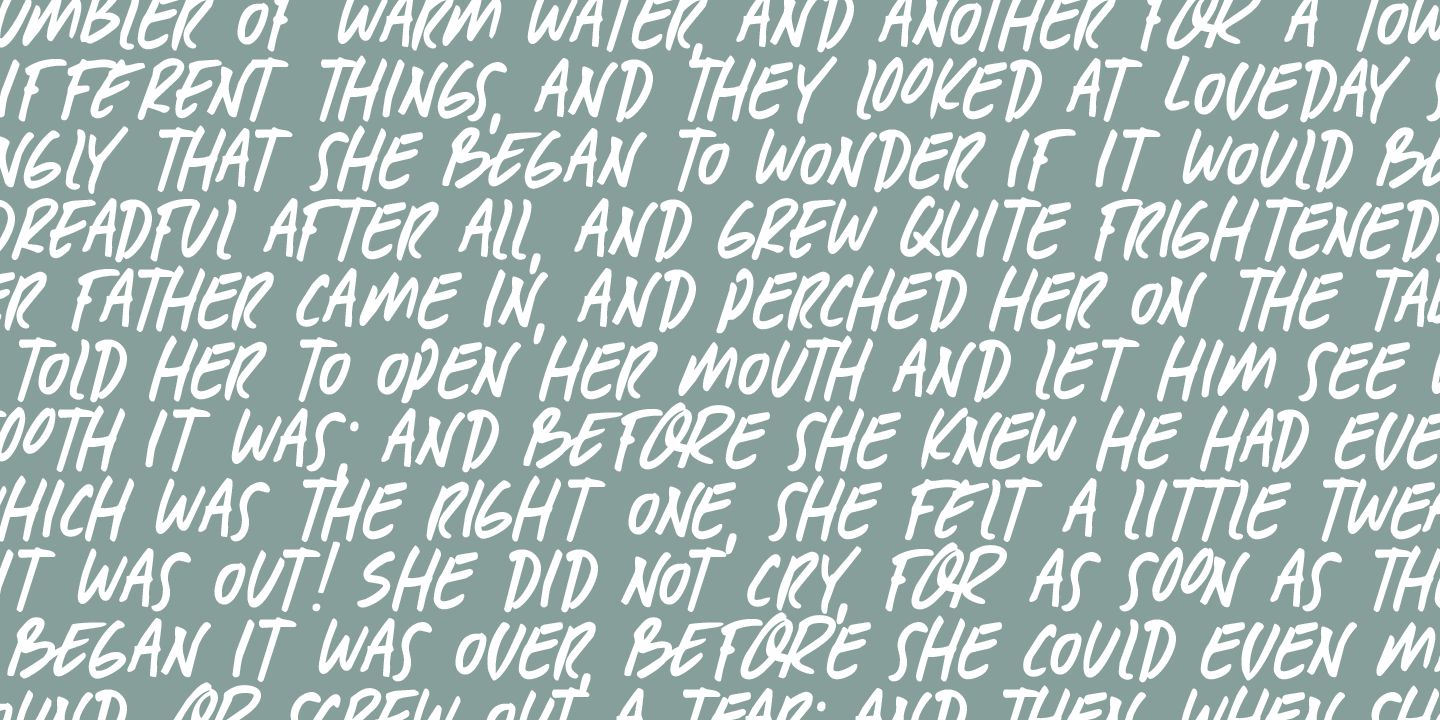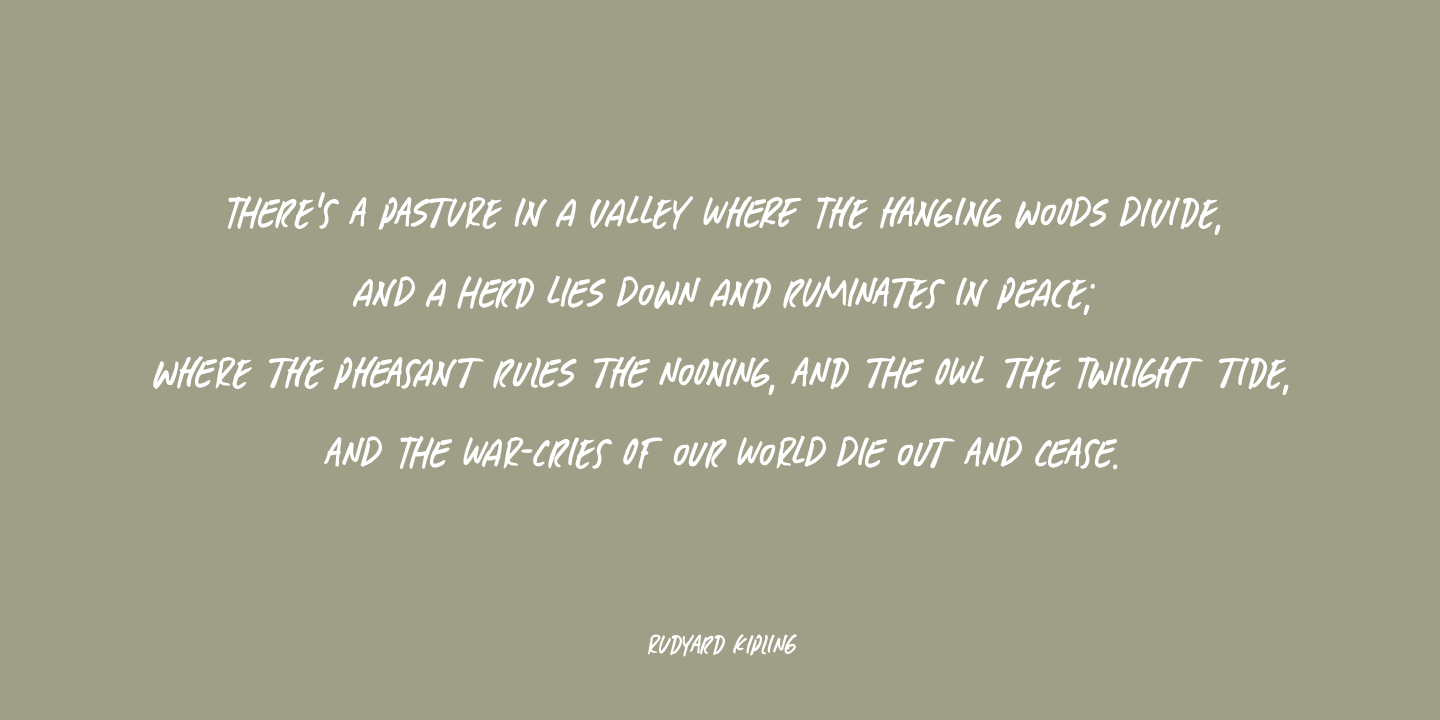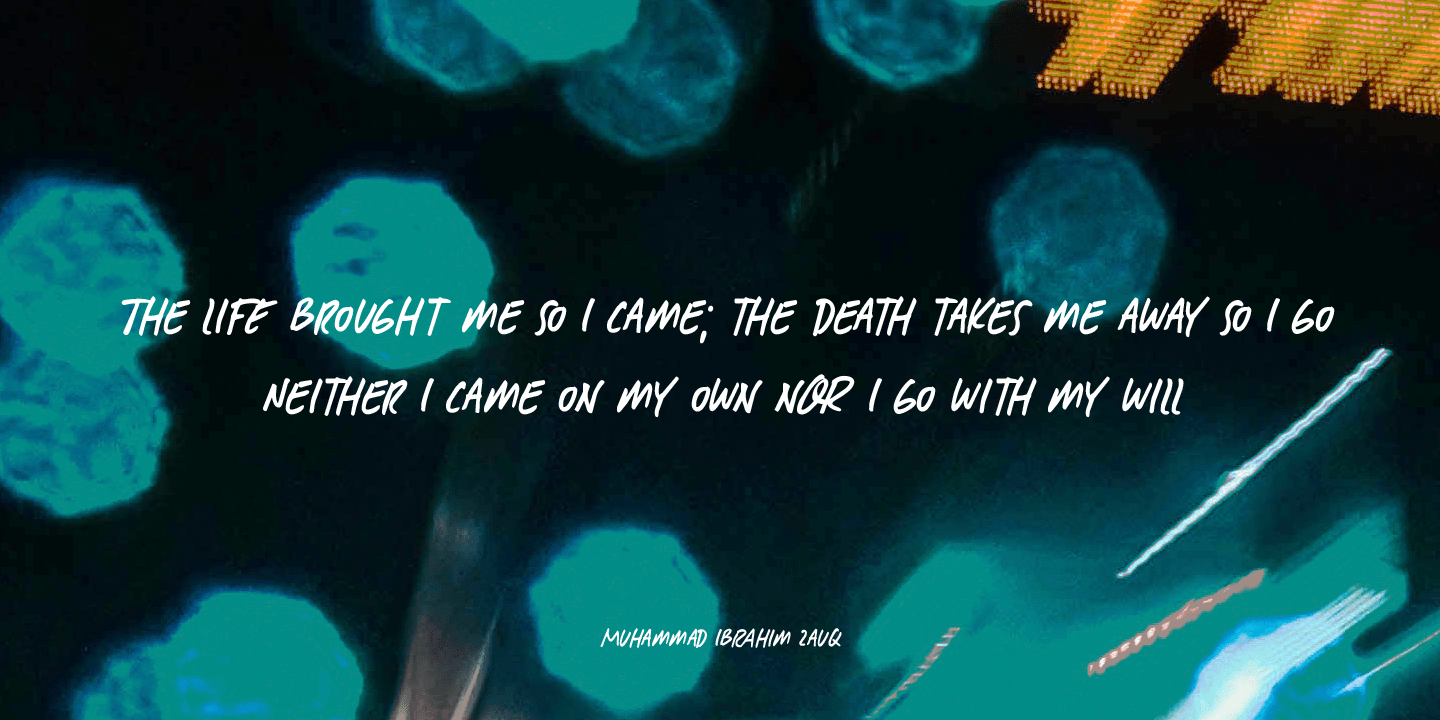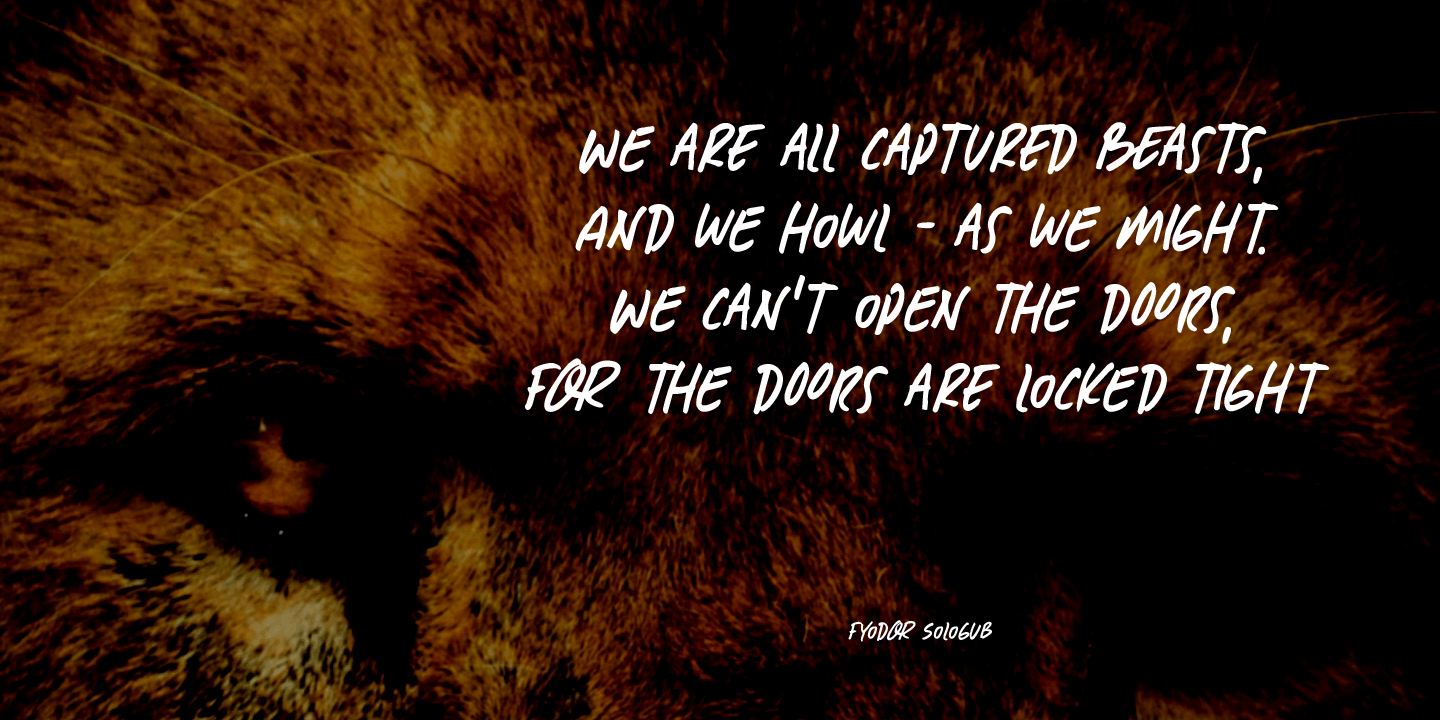
Mission Accomplished is a fast and furious kind of font. I started jotting down letters with a marker pen as fast as I could to see what would come out. Well, this font came out. Mission Accomplished can be used virtually anywhere, but single origin…